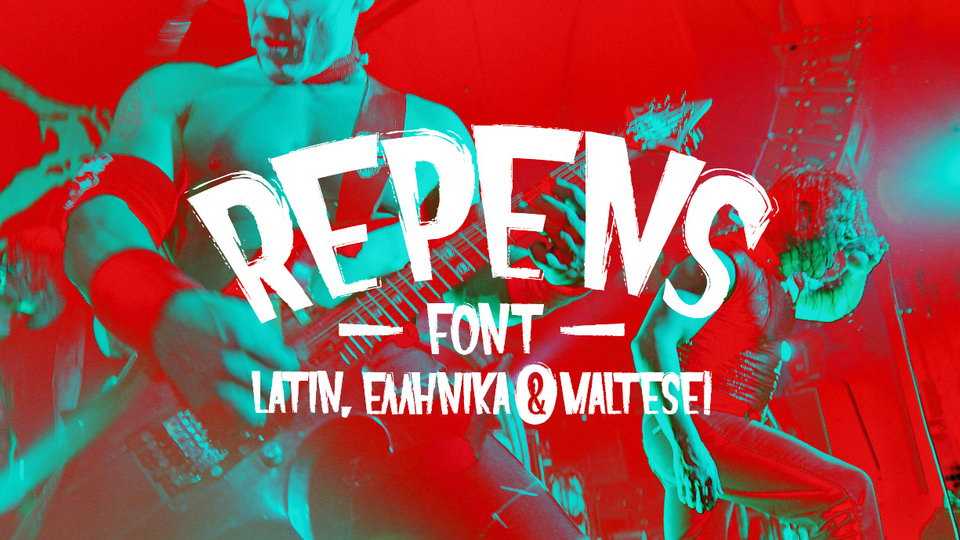
Download Repens font, a cool hand brushed type inspired by punk typography of 70’s and 80’s. Great for posters, headlines, t-shirt prints, banners, music band’s logos and branding and other creative projects.
Designer: Iordanis Passas